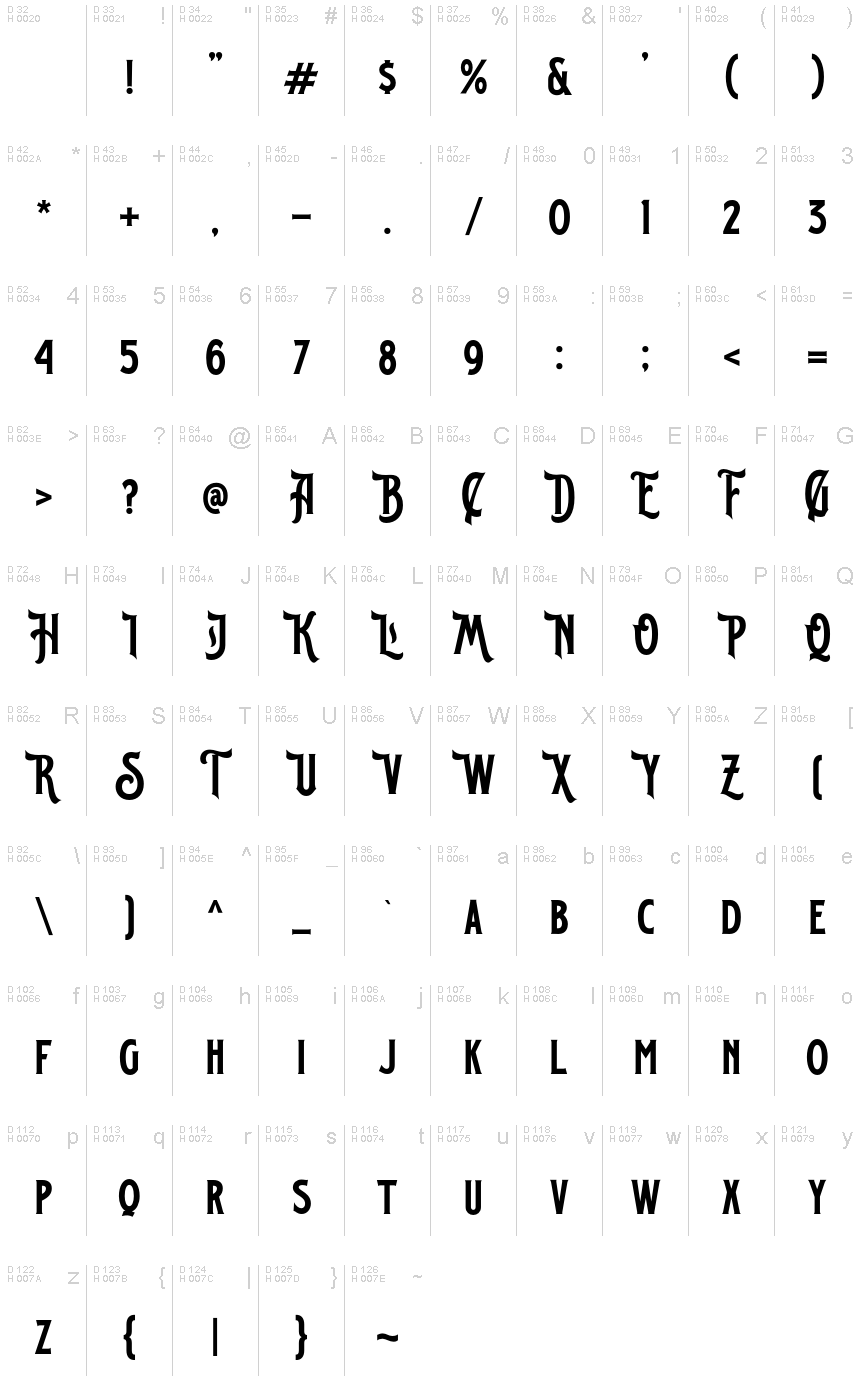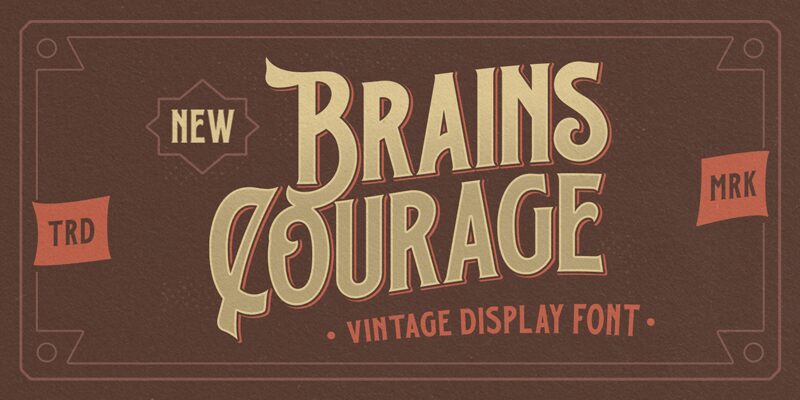
Brains Courage font by Letterhend Studio is a free font with a decorative retro display accent. The typeface reflects its vintage influences in the extra detailing that decorates its letterforms. The overall feel of the font is elegant, sophisticated, and has balanced weight distribution making each character stand out and become memorable.
Brains Courage was created to live in titles and headlines as part of book covers, posters, packaging, branding designs, etc.. Featured applications include newspapers and magazines whether digital or printed.